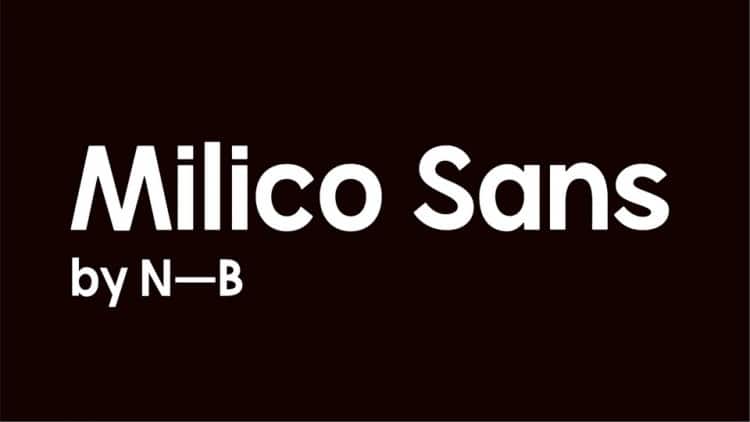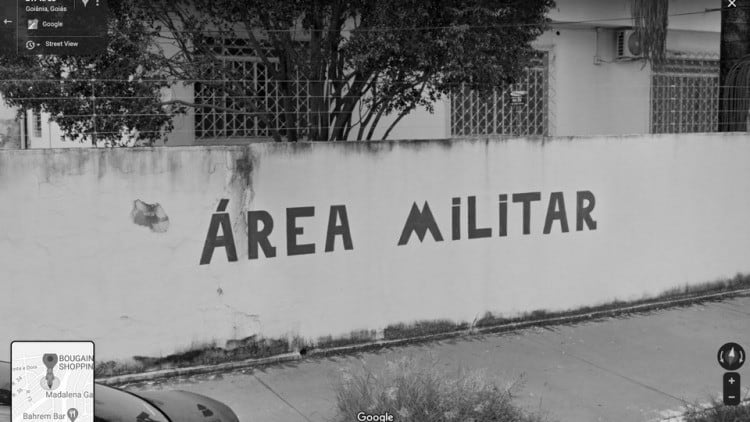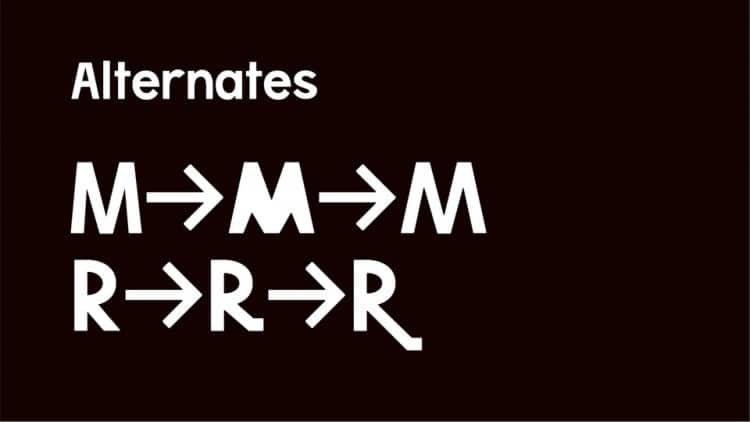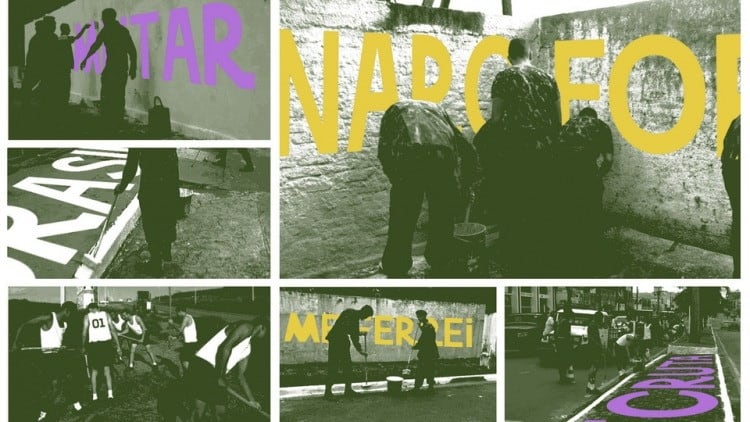
Milico Sans Serif Font is a typeface full of wonder. Abundant with rounded shapes, geometric forms and soft lines. It’s a bold and powerful typeface created by Neuralbrand Studio inspired in the letterings found in the walls of a military village in Goiânia (Brazil). Designed to shine when used in signage, logos, headlines or short to medium length texts where you need something distinct.